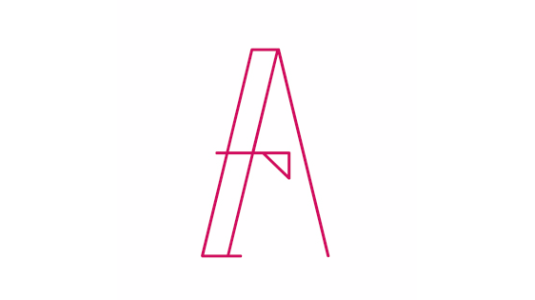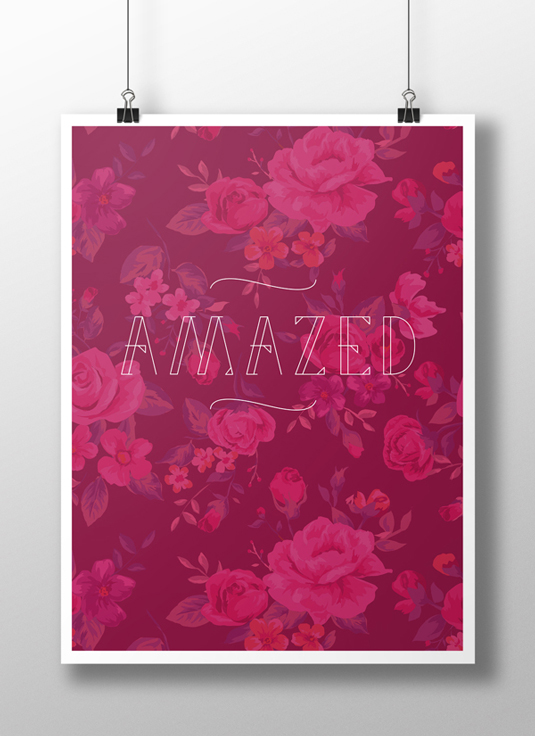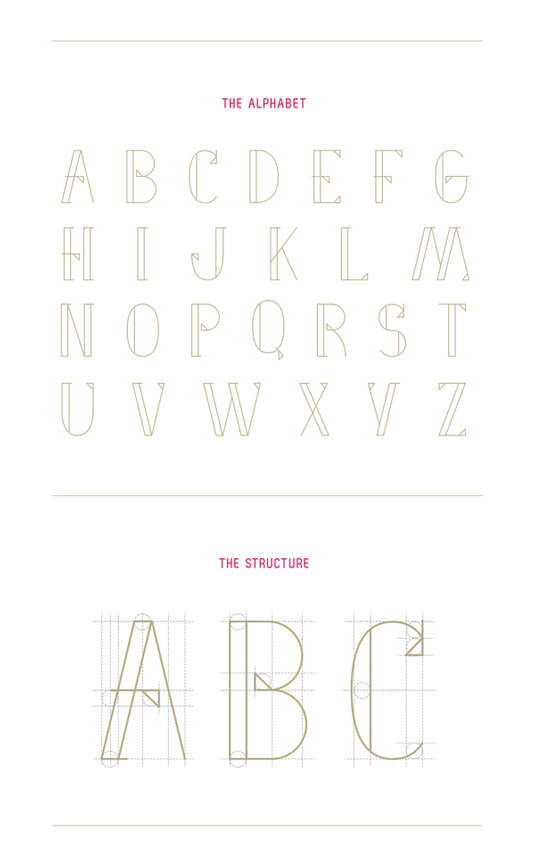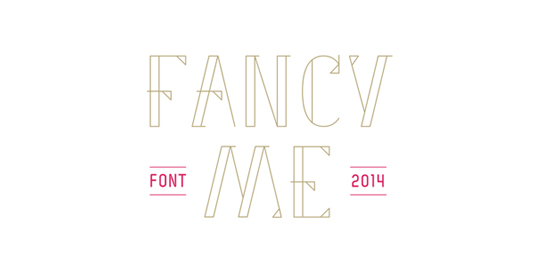
Font of the day: Fancy Me
Every day we showcase the best fonts on the web. Today it's Fancy Me by Marie-Michelle Dupuis, which is free to download!
Fancy Me by Marie-Michelle Dupuis
Fancy Me was created by Quebec-based graphic designer Marie-Michelle Dupuis. "This is my first font," she says. "A mix between edgy, modern and yet femine, which could look great in editorial designs."